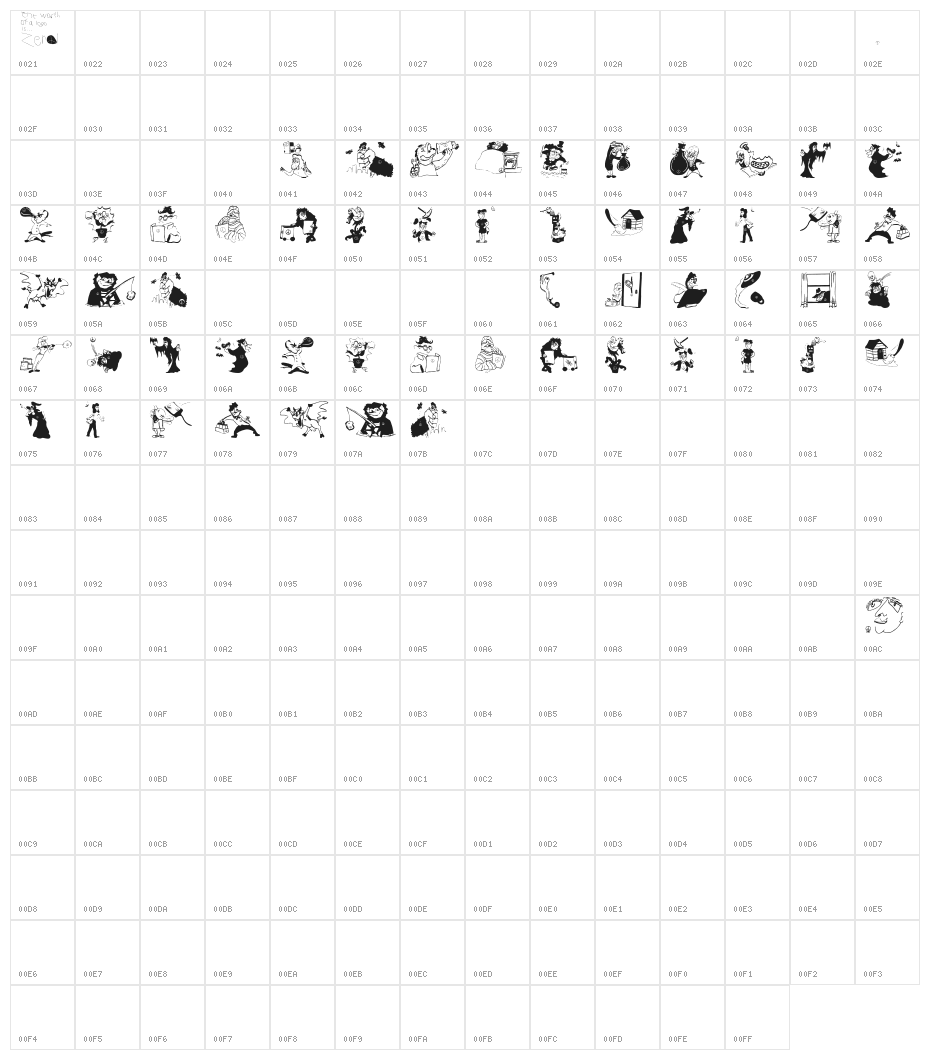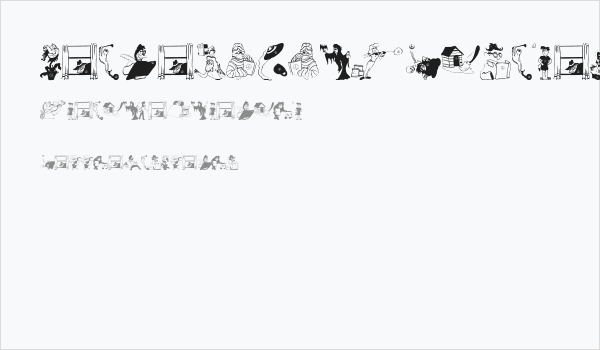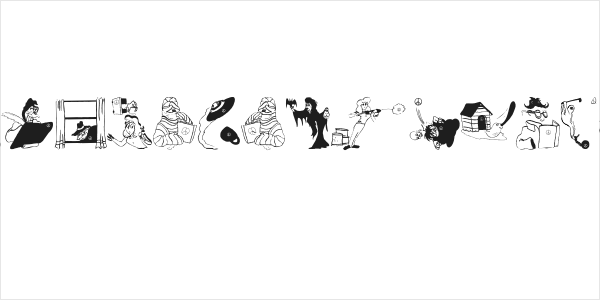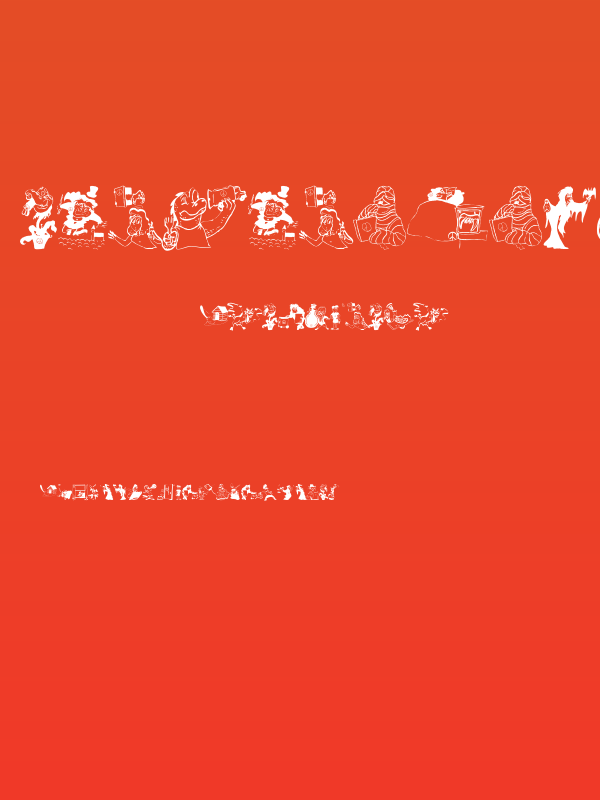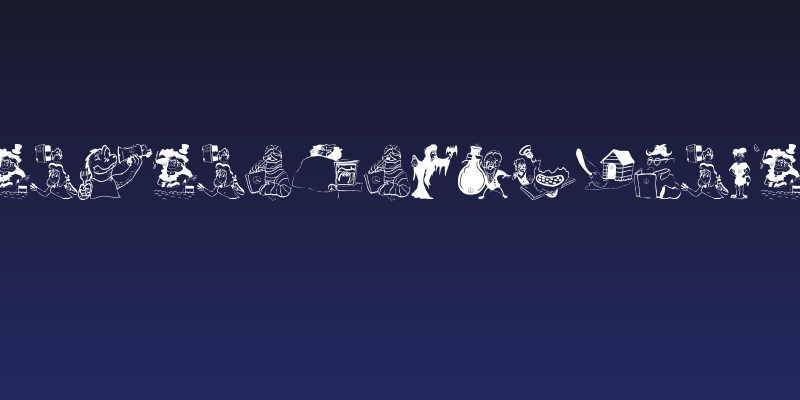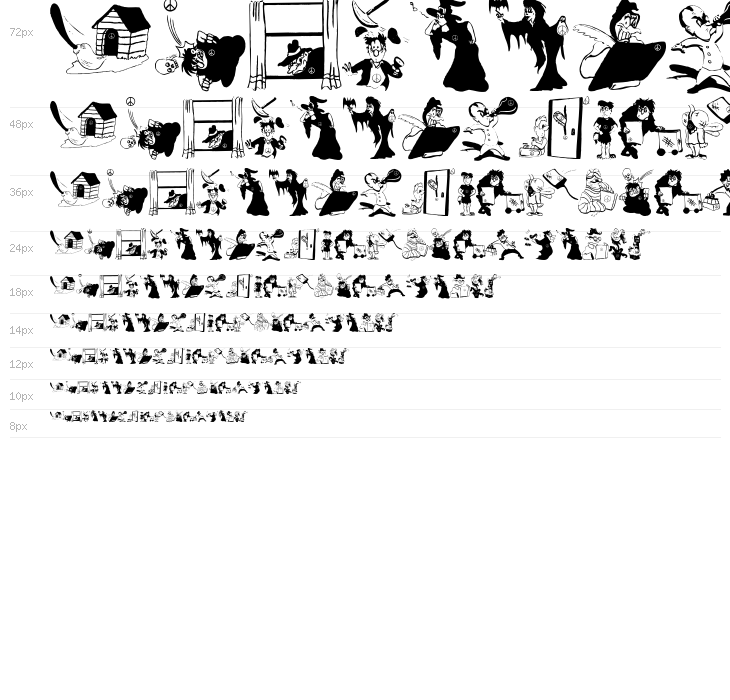
PeaceAndNightmares Font
PeaceAndNightmares Description
A highly decorative and whimsical font where each character is represented by a unique cartoon illustration, often featuring playful or spooky themes. The glyphs are hand-drawn with varying line thickness and a mix of solid black and white spaces, making each letter visually distinct and expressive.
| Overall Style | Decorative, Whimsical, Playful |
| Use Case | Headlines, Posters, Themed event materials |
| Proposed Projects | Children's books, Halloween invitations, comic titles, posters, novelty greeting cards. |